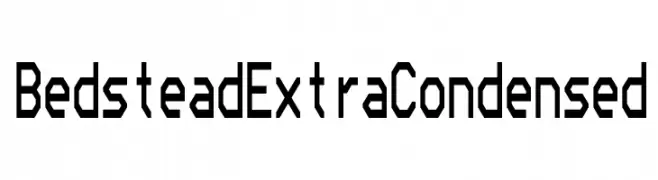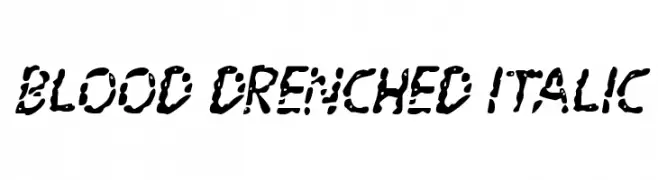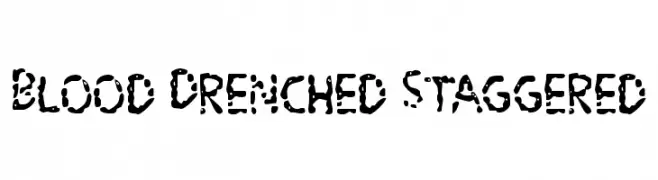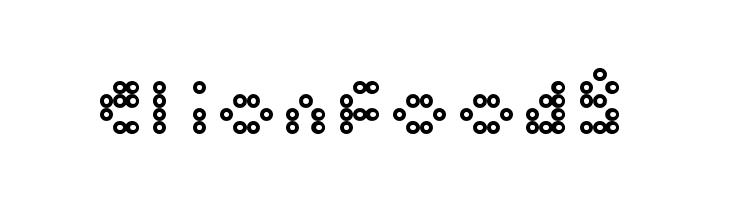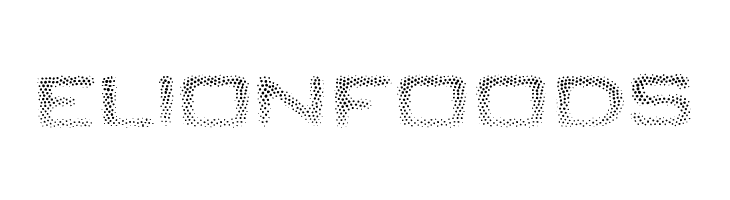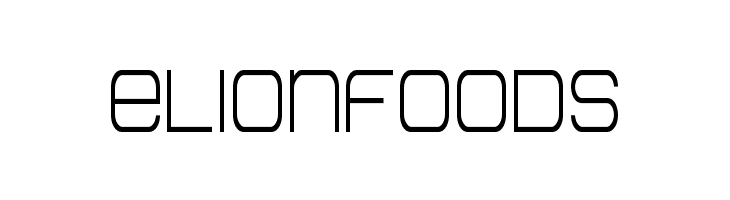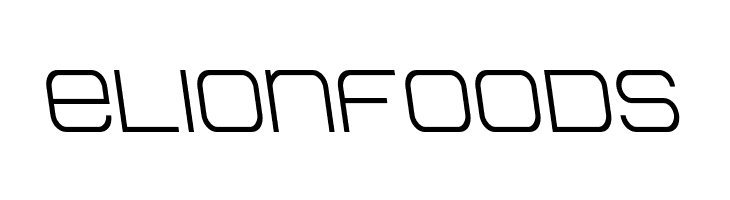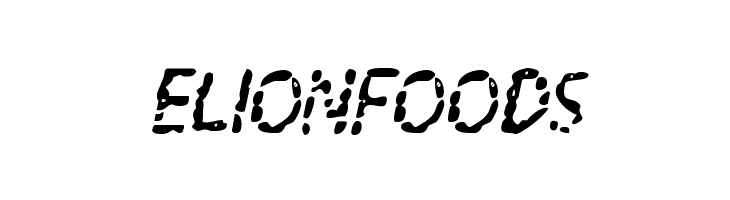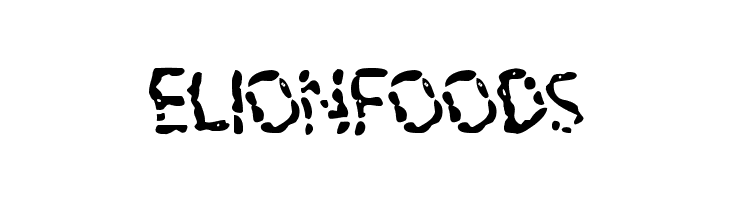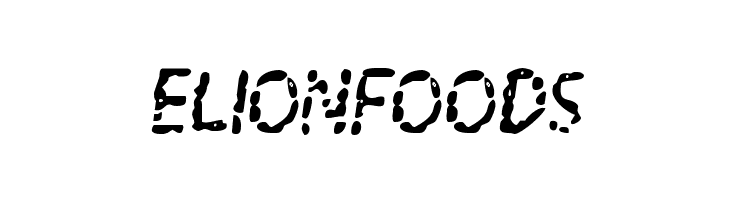
A geometric, angular font with an extra-condensed and modern design.
A playful, dotted font with characters formed from small circles.
A modern, geometric, and condensed font with clean lines and rounded edges.
A modern, geometric font with clean lines and rounded corners.
A dripping, blood-like decorative font with a horror theme.
A bold, dripping font with a wavy, fluid appearance.
A blood-splattered, semi-italic font with a dramatic, horror-themed style.
A bold, irregular font with a dripping, splattered appearance, perfect for horror themes.
A bold, dripping font with a fluid, blood-like appearance.